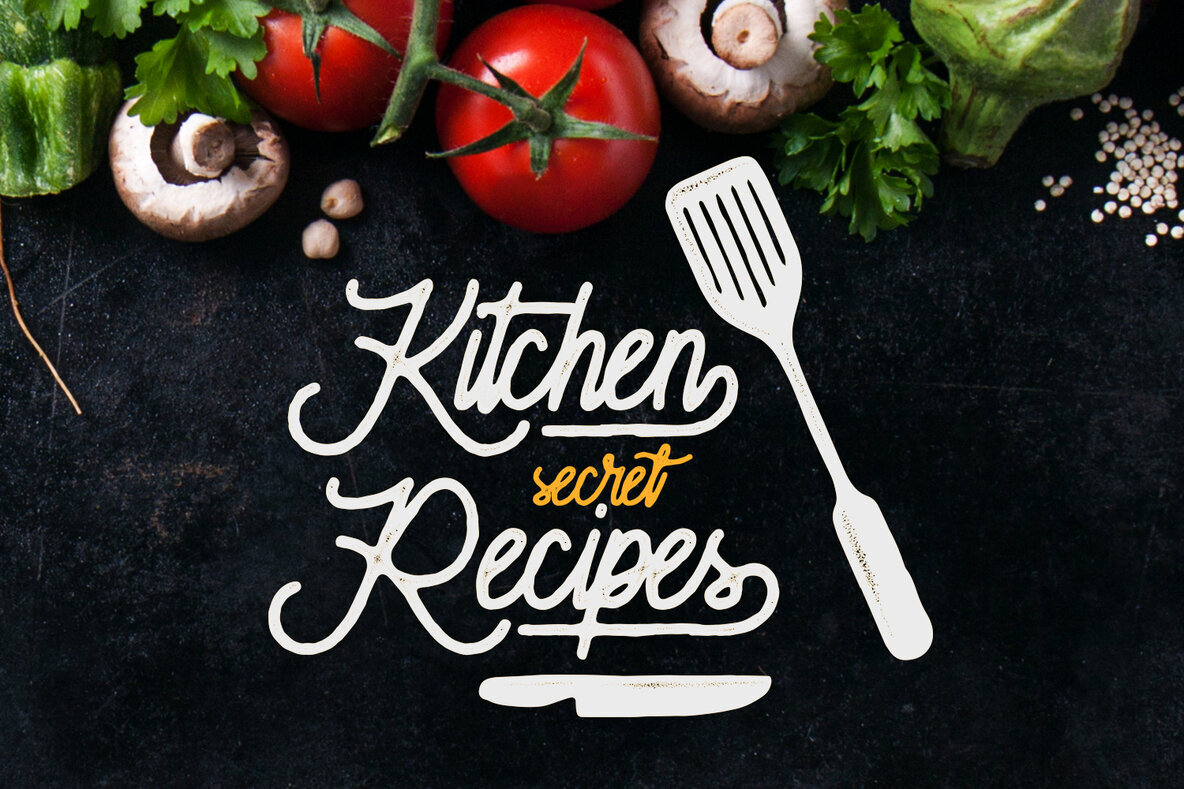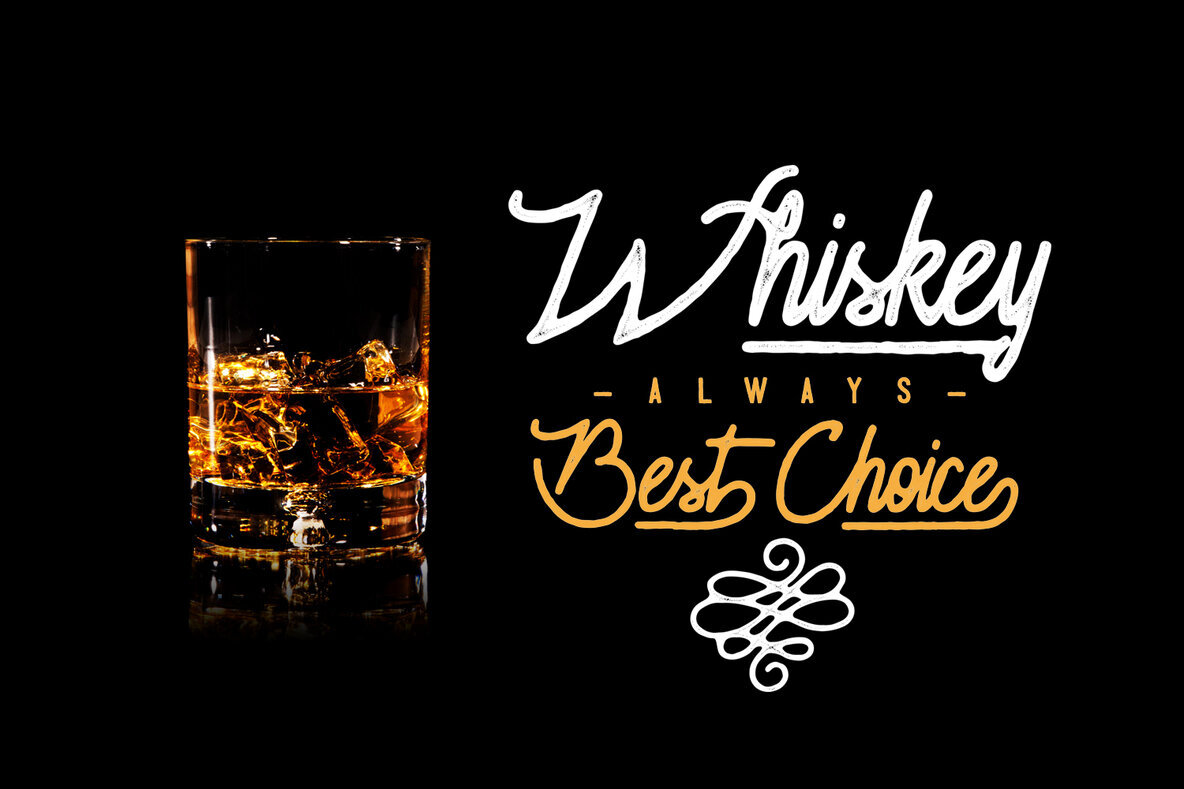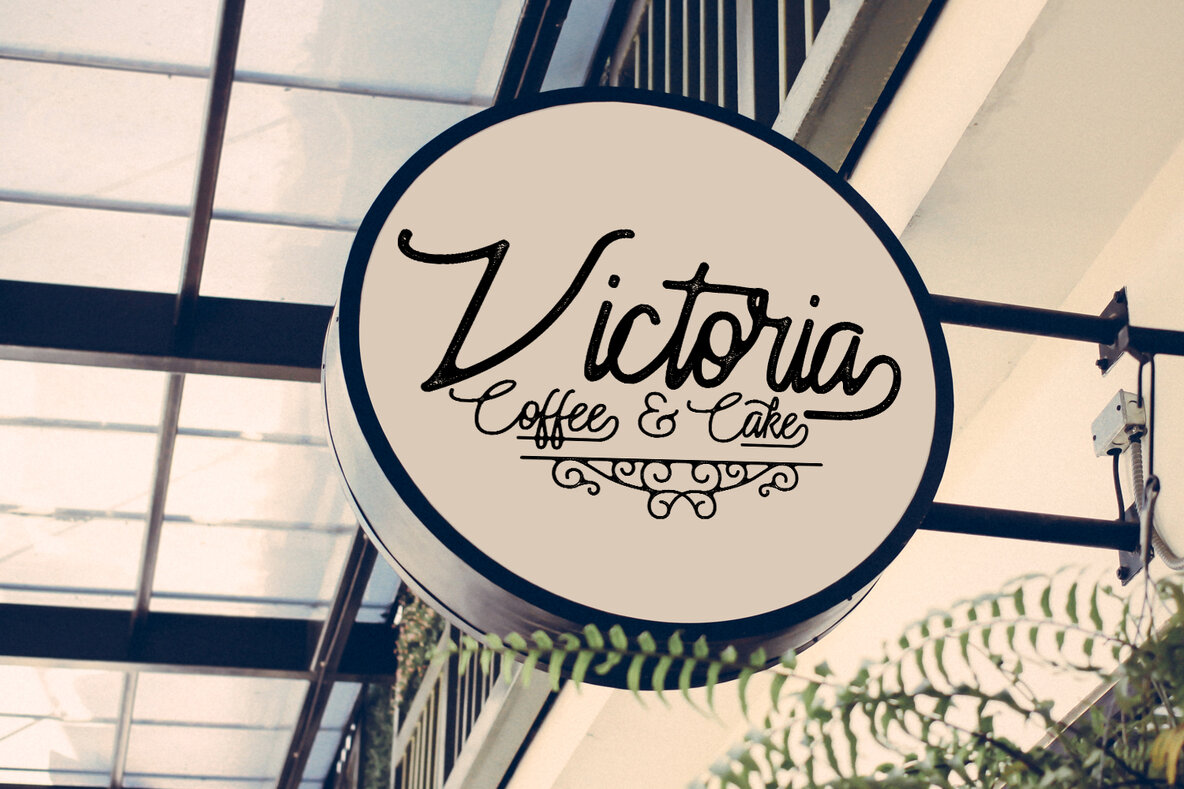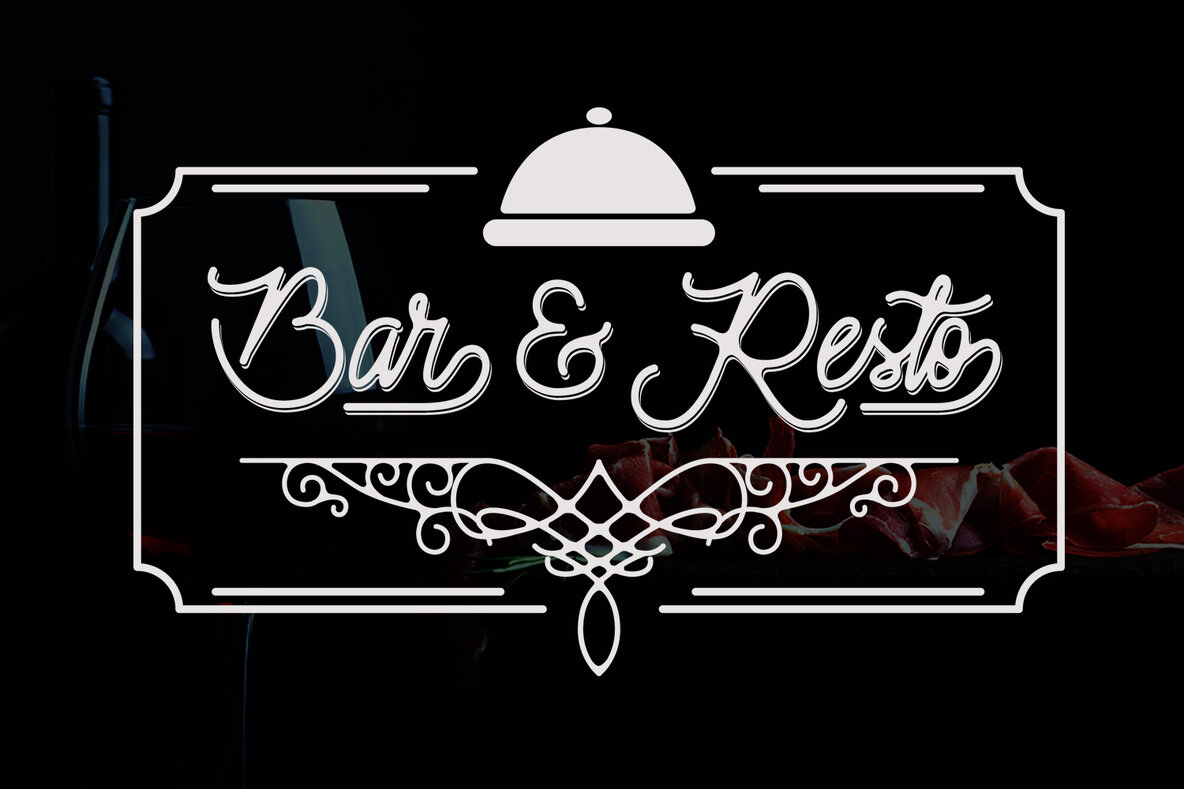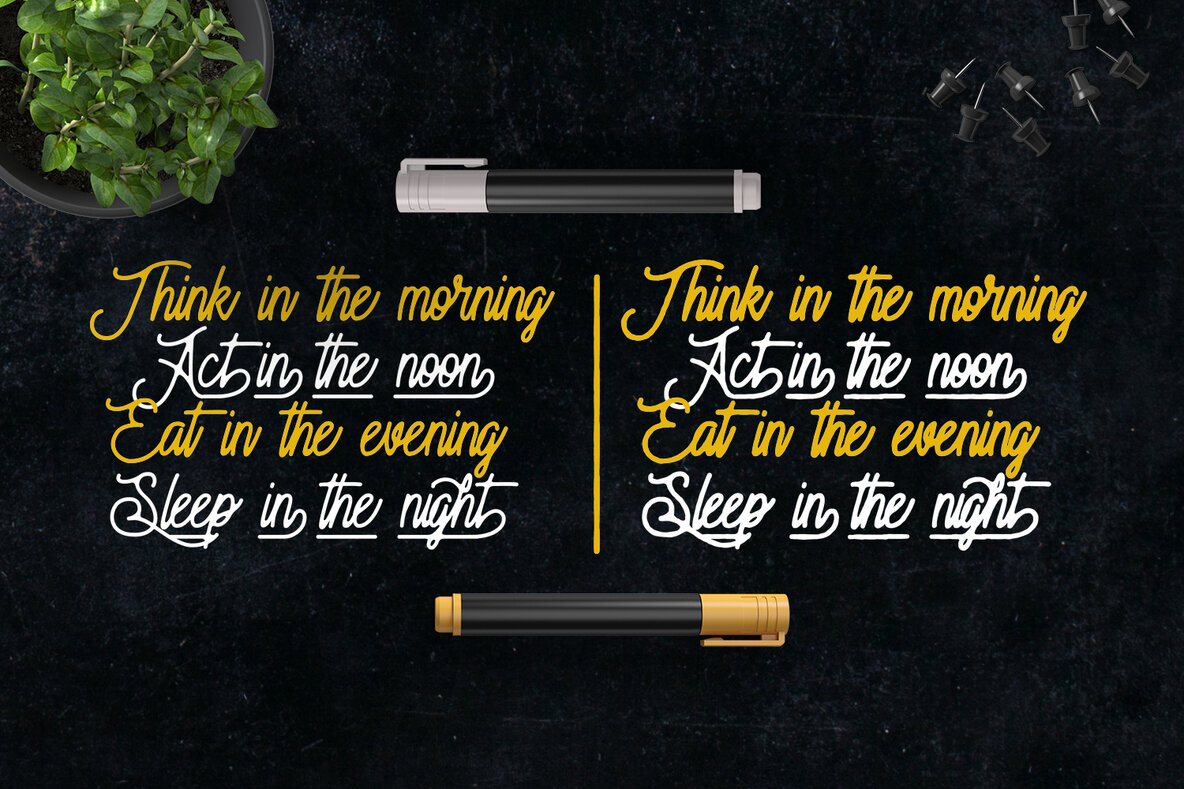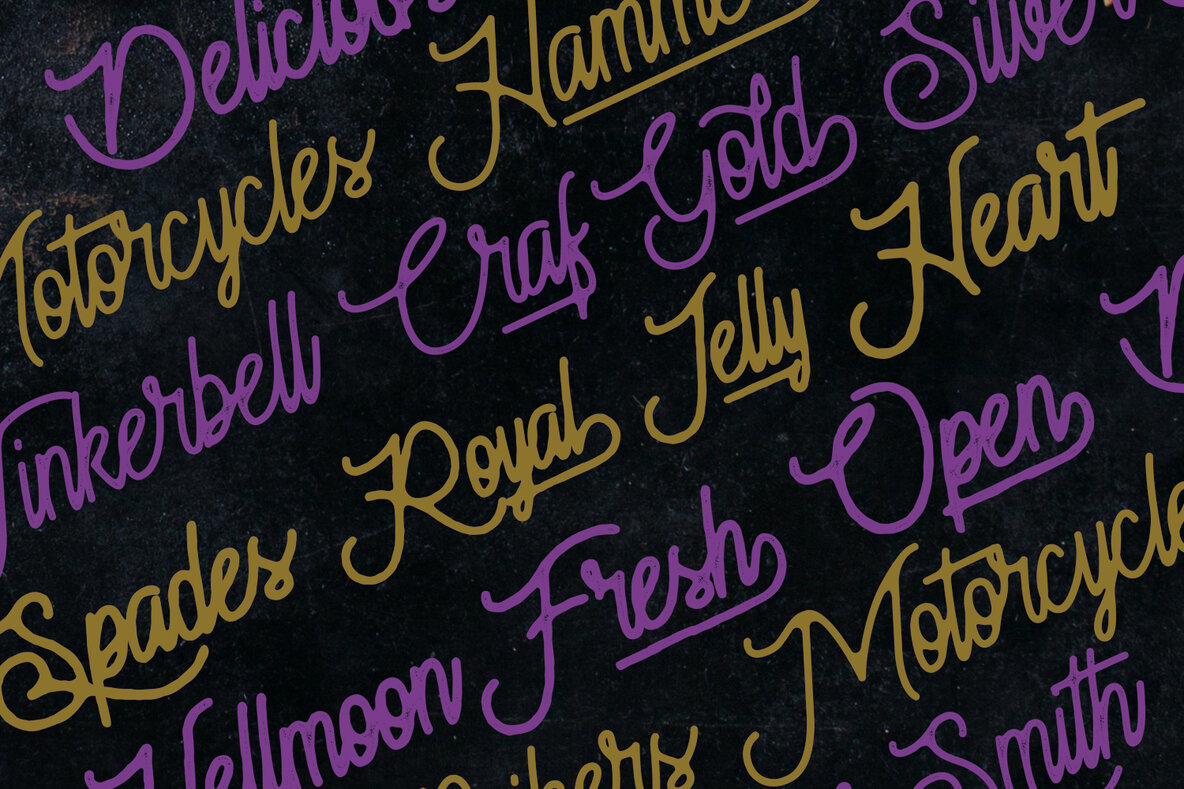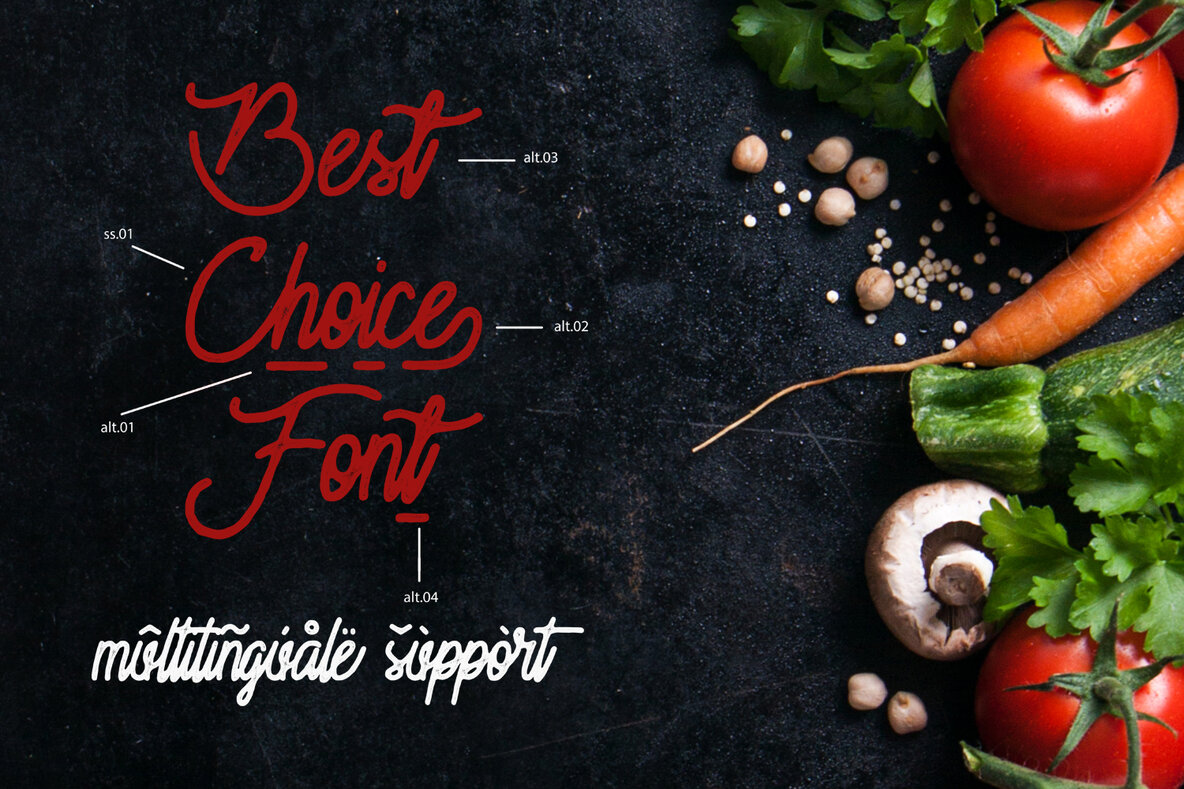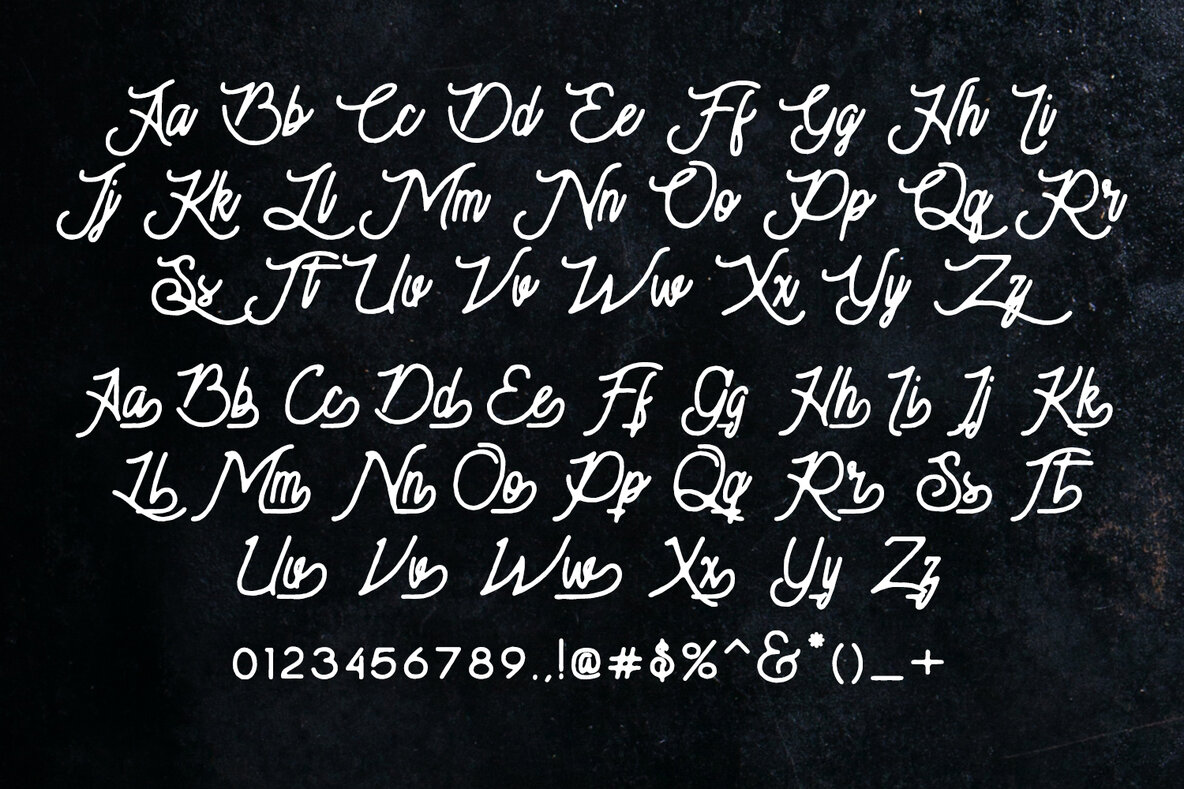
Moonchrome Font
Moonchrome offers a versatile monoline typeface, beautifully suited for a spectrum of design endeavors. Its clean aesthetic and four alternate variations make it a favorite among those working on poster design, merchandise, and book covers. Whether employed in fashion campaigns or branding initiatives, Moonchrome ensures a sleek, professional finish.Moonchrome: A Versatile Monoline Typeface
Perfect Applications